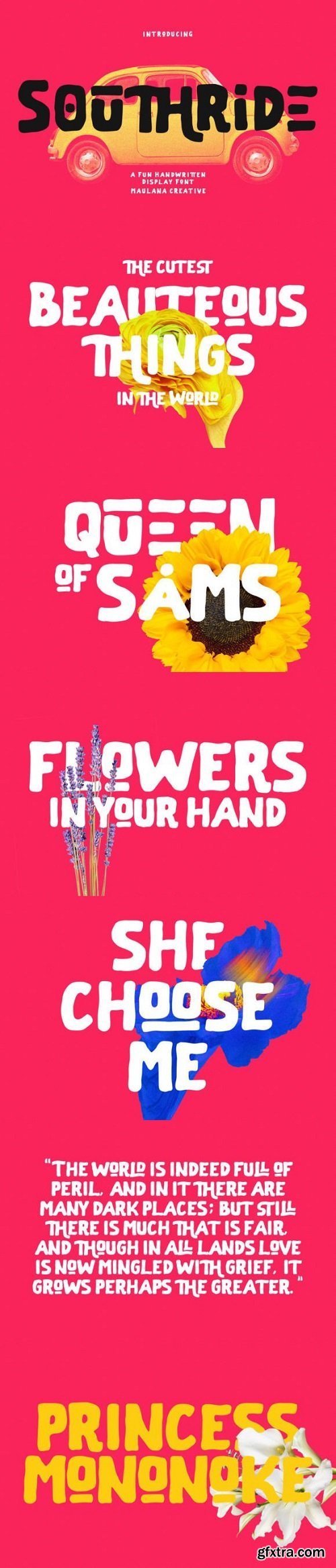
索南丽德字体
Southride is a quirky and fun display font. Whimsical and super playful, this font will brighten up each of your designs. Add it confidently to your projects, and you will love the results.